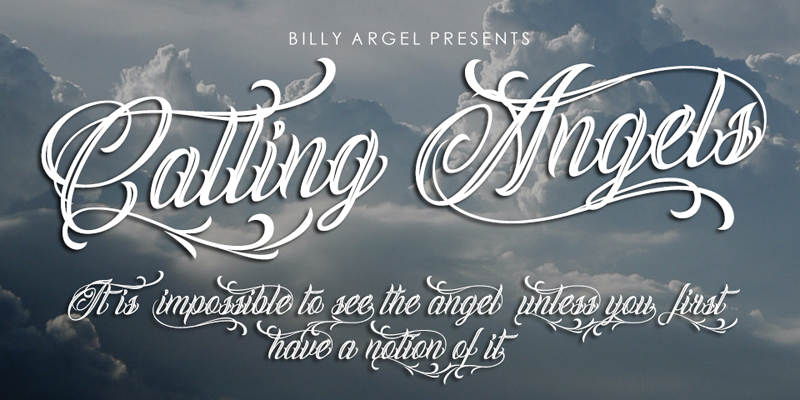
Calling Angels
The full version of this font has loose swashes are ligatures is not fused at the letters like in the free version. Also has another ligatures for better reading.